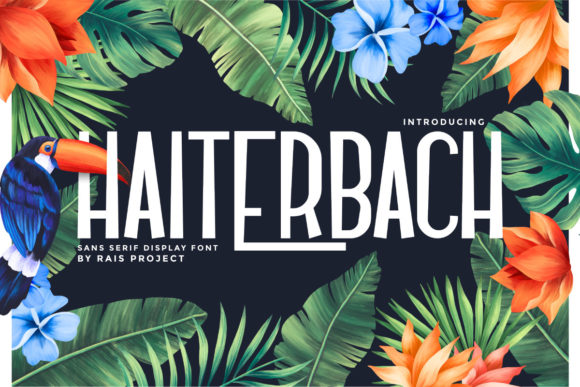
Introducing Haiterbach Font: The Perfect Blend of Modernity and Freshness
In the world of typography, a new font has emerged that embodies the essence of summer vibes and modern design. Say hello to Haiterbach Font, a contemporary sans serif font that is making waves in the design community. With its exclusive special characters, fresh style, and versatility, Haiterbach is set to become a favorite among designers and crafters alike.
Design Inspiration
Haiterbach Font draws inspiration from the carefree spirit of summer, bringing a sense of freshness and modernity to the world of typography. Its design is characterized by a perfect balance of hard lines and smooth curves, creating a visually appealing aesthetic that is both sleek and sophisticated.
- Exclusive Letterforms: Haiterbach boasts unique and exclusive letterforms that set it apart from other fonts. Its modern shapes and various alternates provide designers with a wide range of creative possibilities.
- Two Weights: The font comes in two different weights, allowing designers to add a touch of modernity to any project. Whether you’re designing a logo, business card, or poster, Haiterbach’s weights provide the perfect balance of elegance and boldness.
- PUA Encoded: Haiterbach is PUA encoded, making it easy for designers to access all the glyphs and swashes. This feature ensures that designers can effortlessly incorporate the font’s special characters into their work.
Versatility and Applications
Haiterbach Font is incredibly versatile and can be used in a variety of design applications. Some of the ideal uses for this font include:
- Blogs: Add a touch of modernity to your blog with Haiterbach’s fresh and clean design.
- Logo Branding: Create a lasting impression with Haiterbach’s unique letterforms and exclusive special characters.
- Business Cards: Stand out from the crowd with Haiterbach’s sleek and sophisticated design.
- Posters: Make a statement with Haiterbach’s bold and eye-catching typography.
- Product Designs: Add a touch of elegance and modernity to your product designs with Haiterbach’s versatile font.
Why Choose Haiterbach Font?
With so many fonts available, why choose Haiterbach? Here are just a few reasons why designers and crafters are falling in love with this modern sans serif font:
- Unique Design: Haiterbach’s exclusive letterforms and special characters ensure that your designs stand out from the crowd.
- Versatility: The font’s versatility makes it suitable for a wide range of design applications.
- Easy to Use: Haiterbach’s PUA encoding makes it easy to access all the glyphs and swashes, saving designers time and effort.